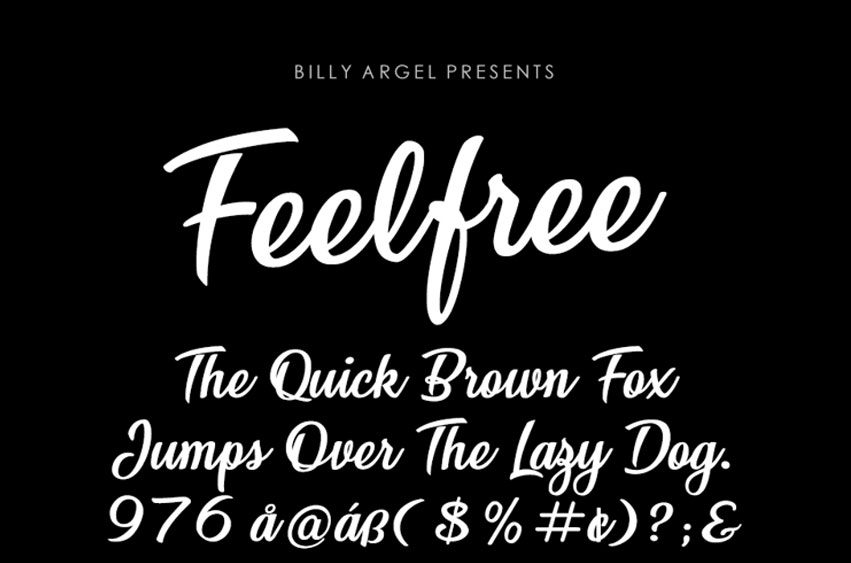
Feelfree Font
Feelfree Font is a cursive font characterized by its smooth, flowing, and handwritten style.
It is typically used in designs requiring a casual, elegant, or personal touch, such as invitations, greeting cards, or creative projects.